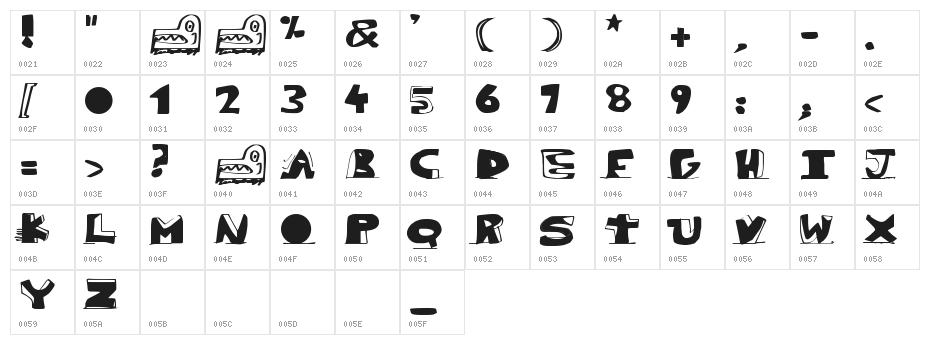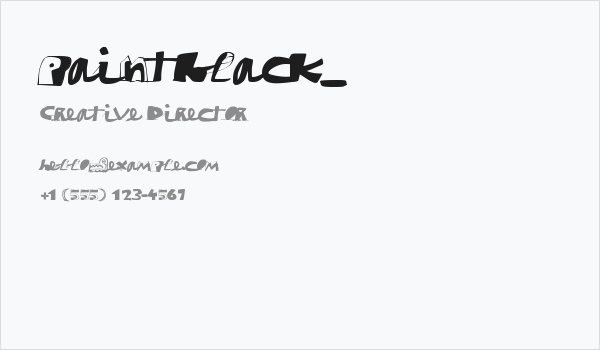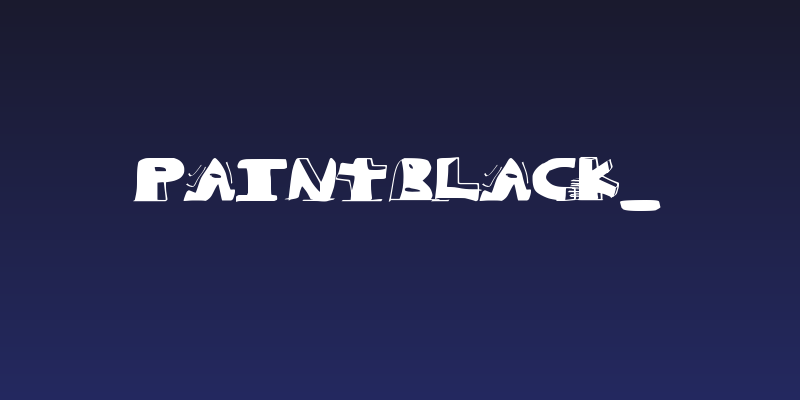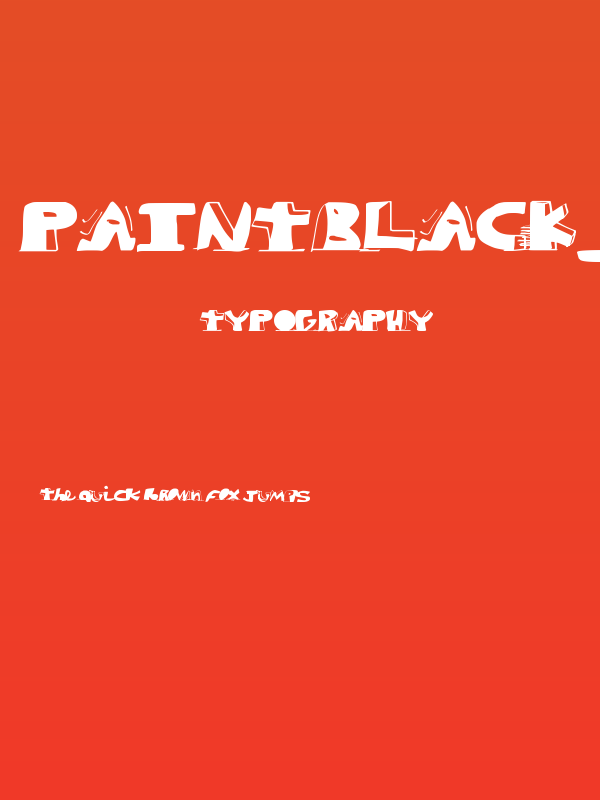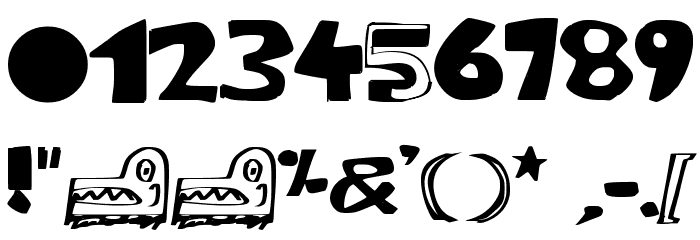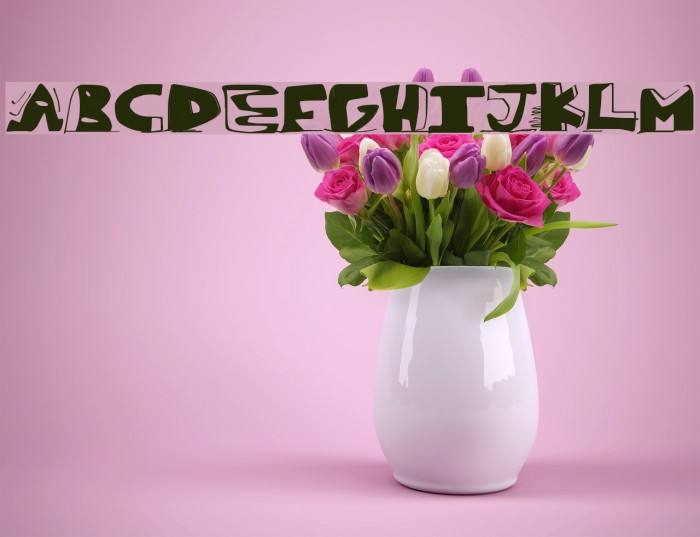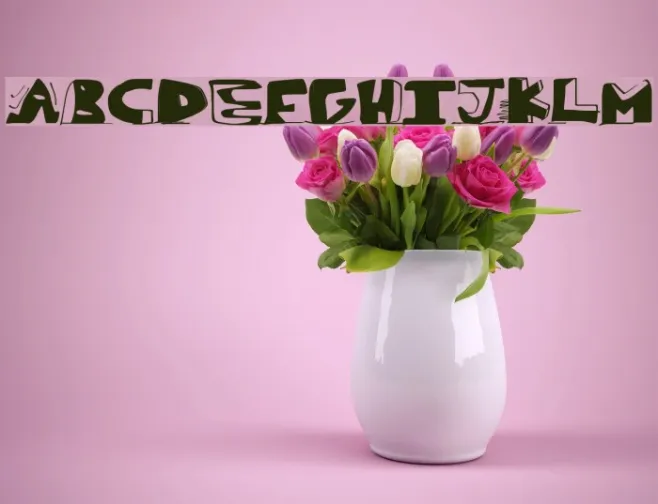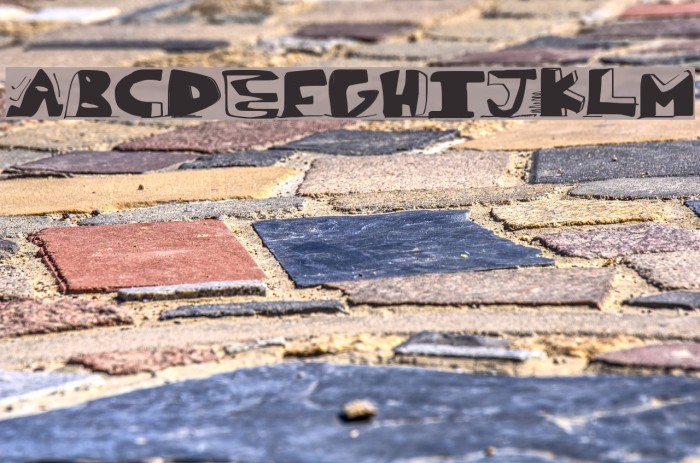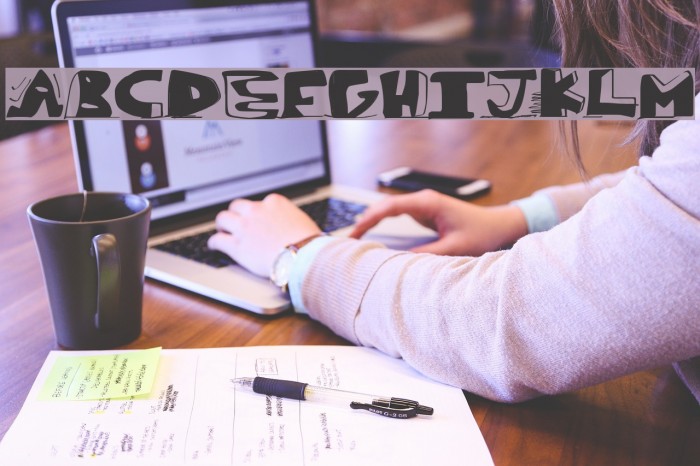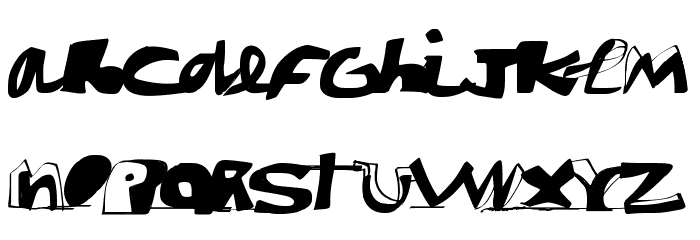
paintblack_ Font
paintblack_ Description
This font exhibits a bold and artistic style, characterized by its irregular and playful shapes. Each letter appears to be hand-drawn with a brush-like effect, giving it a dynamic and energetic feel. The uppercase letters are particularly bold, with varying thicknesses and unique embellishments that add a sense of movement. The lowercase letters maintain this playful aesthetic, with some letters featuring exaggerated curves and angles. Numbers are equally bold and maintain the artistic flair seen in the alphabet. Special characters are creatively designed, adding to the overall whimsical and artistic nature of the font.
| Overall Style | Artistic, Playful |
| Proposed Projects | Ideal for creative projects such as posters, album covers, children's books, and artistic branding. |